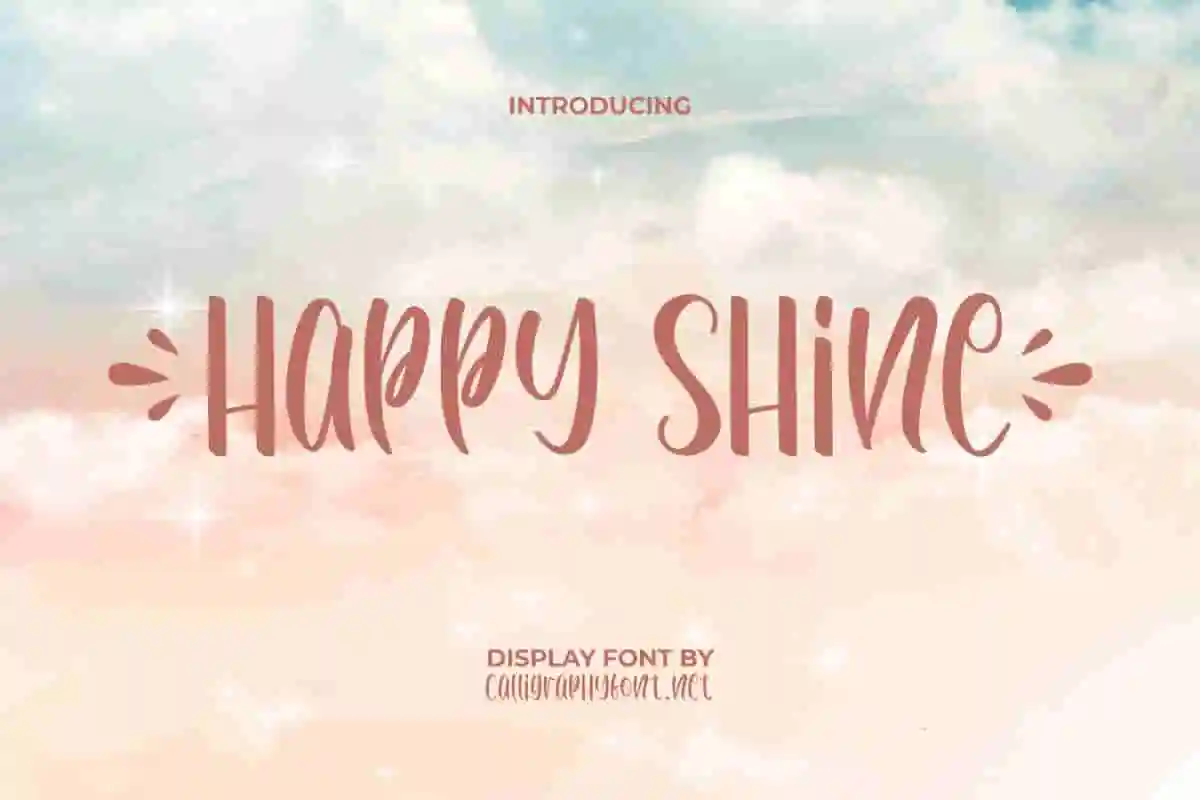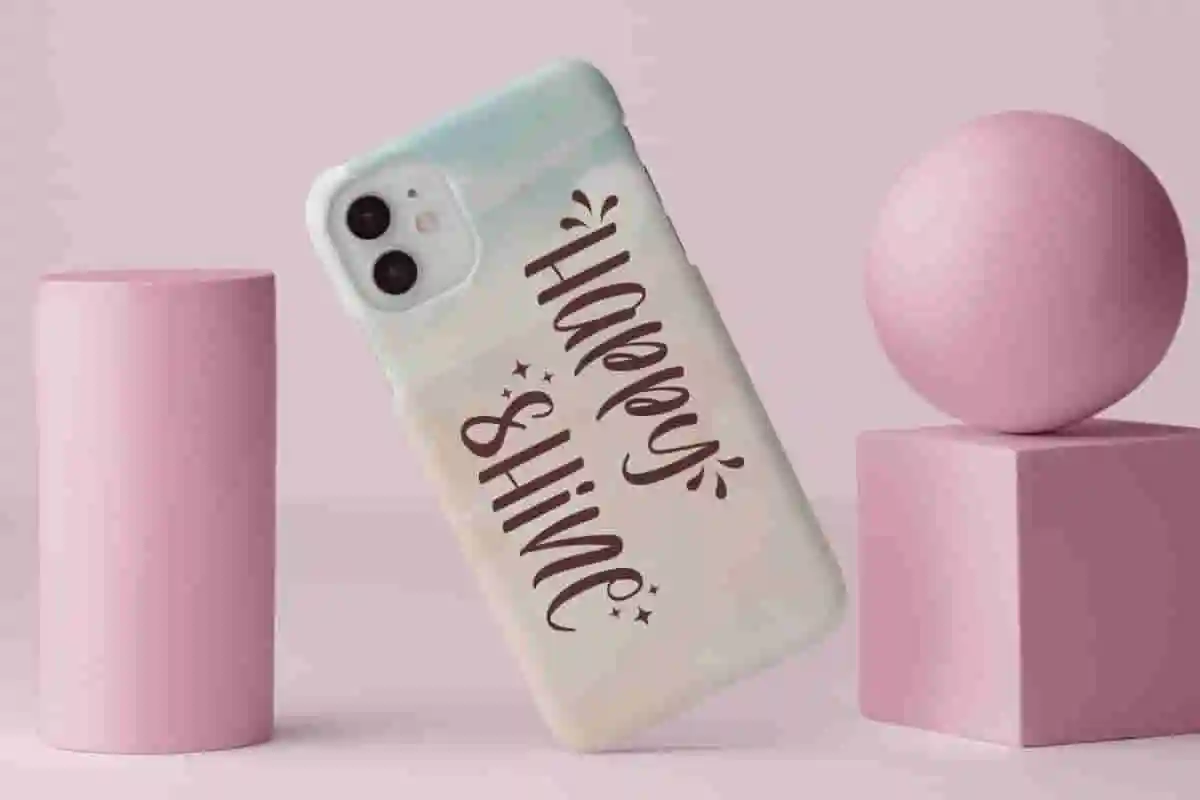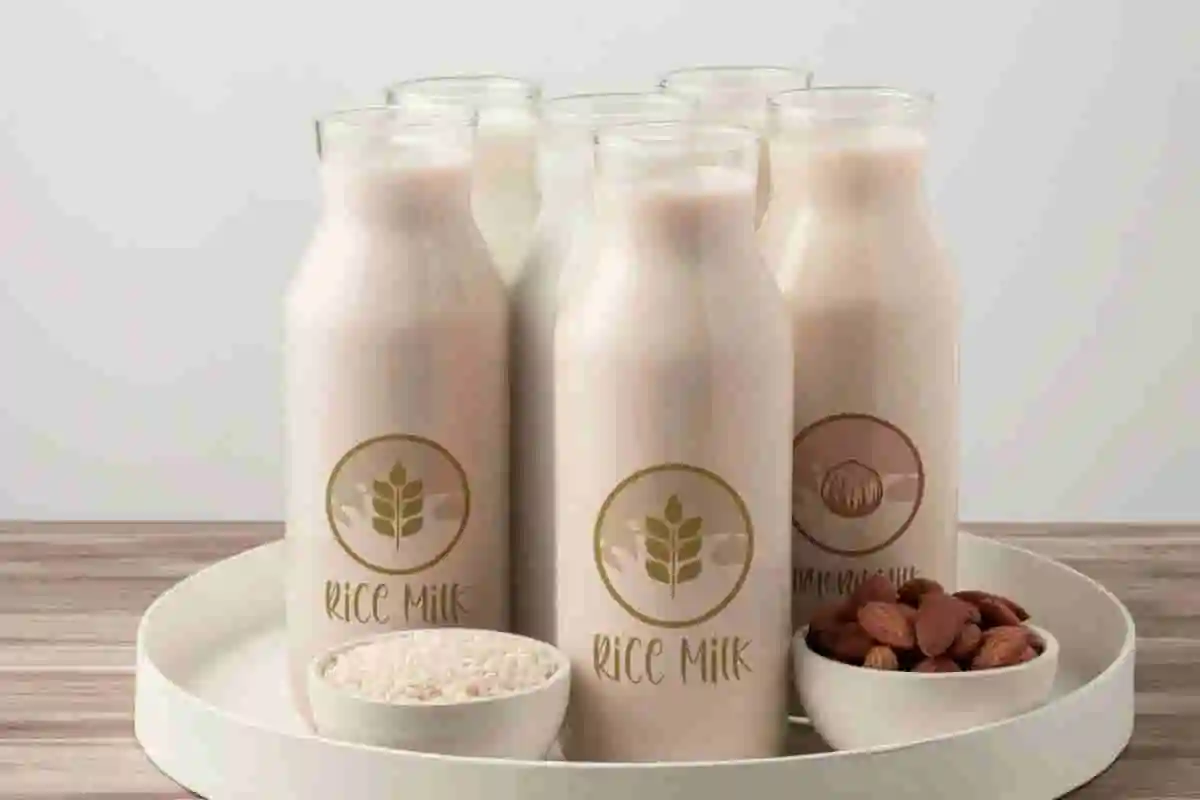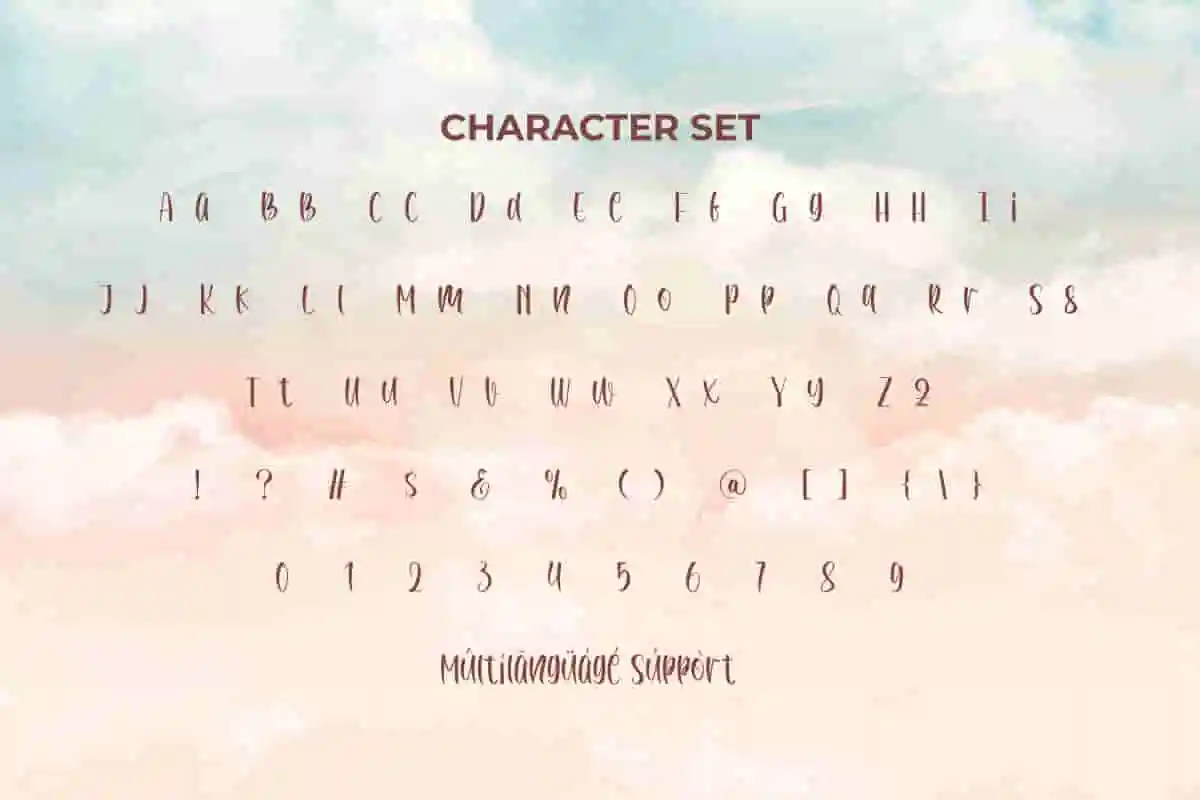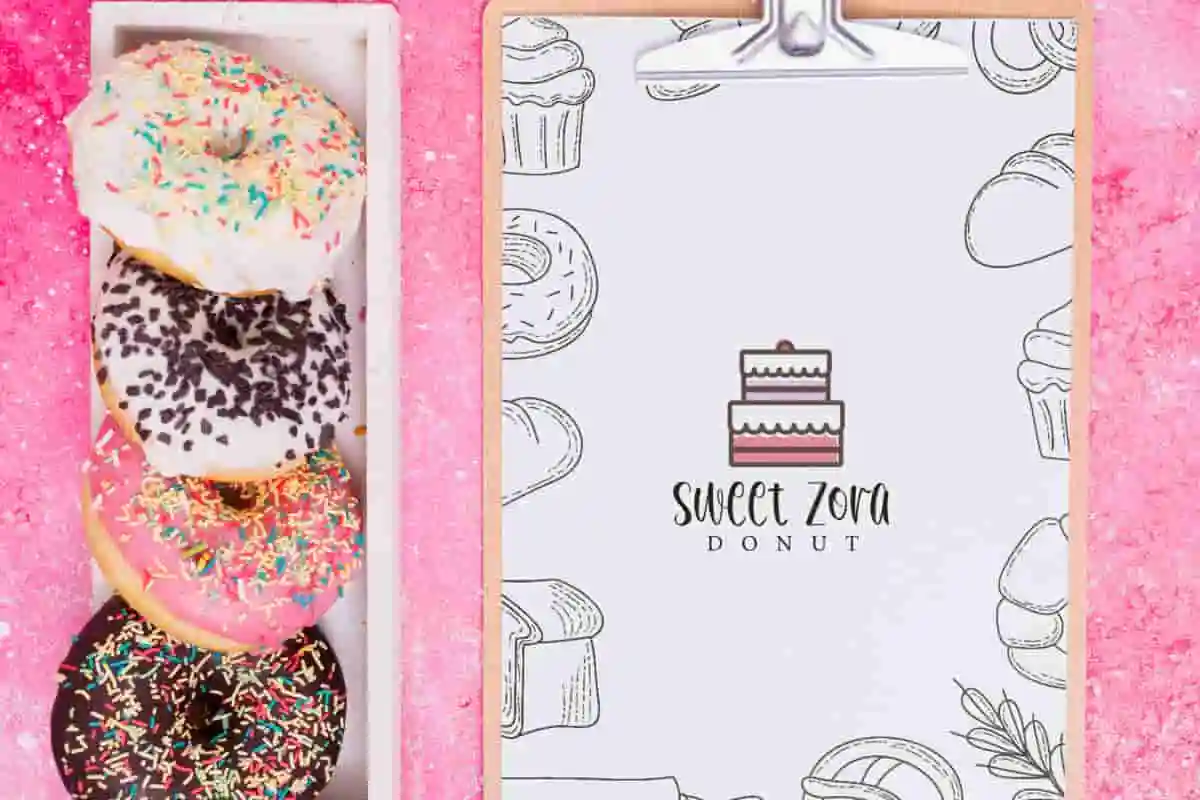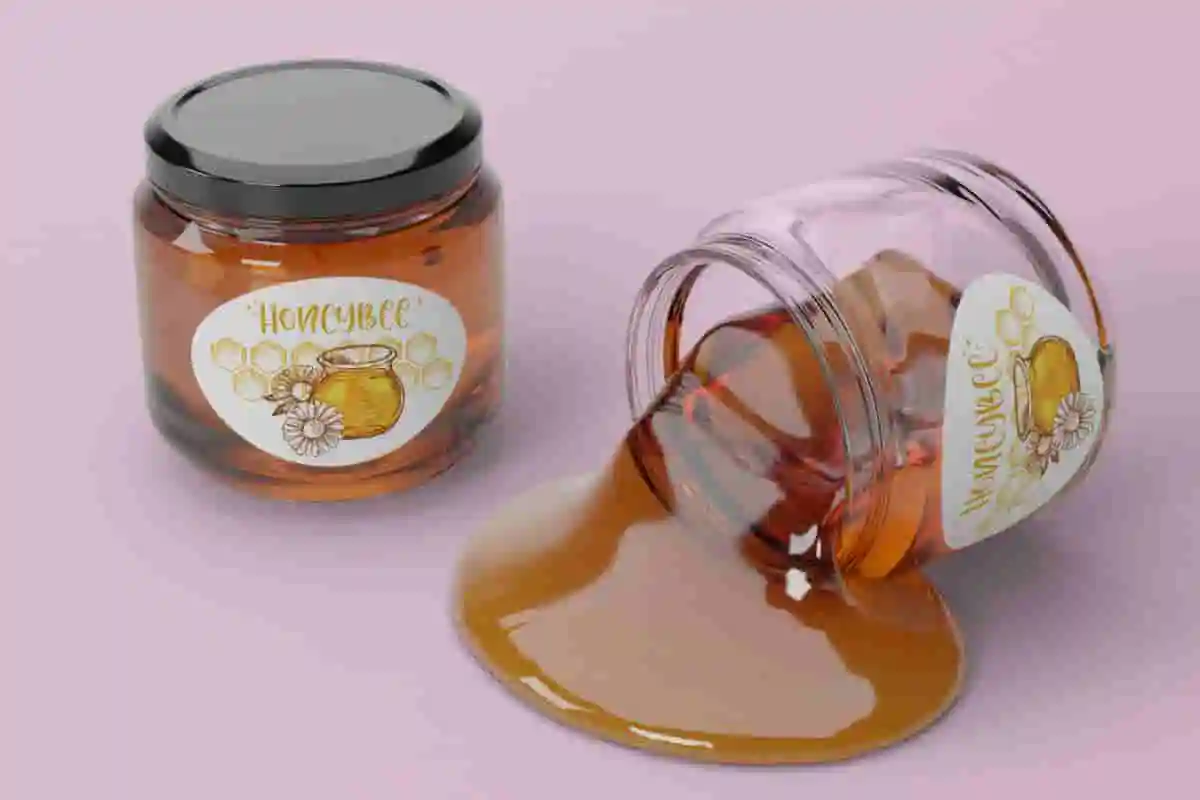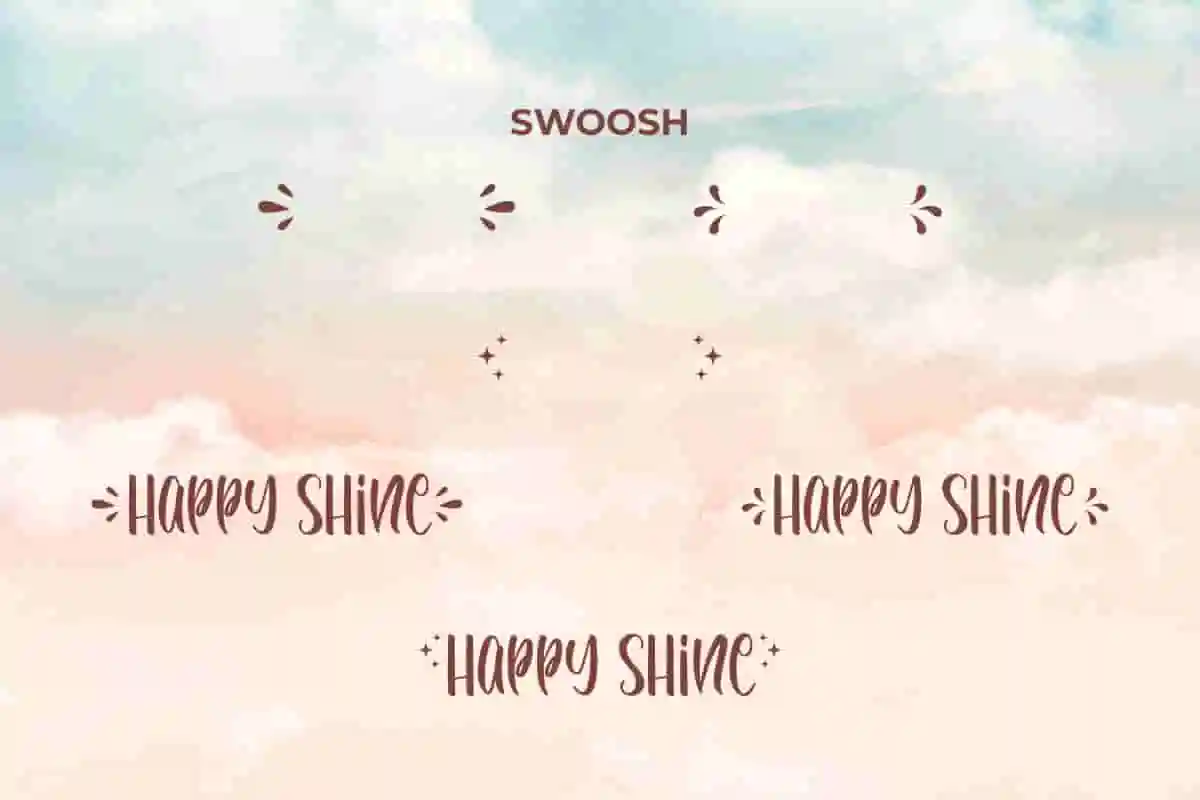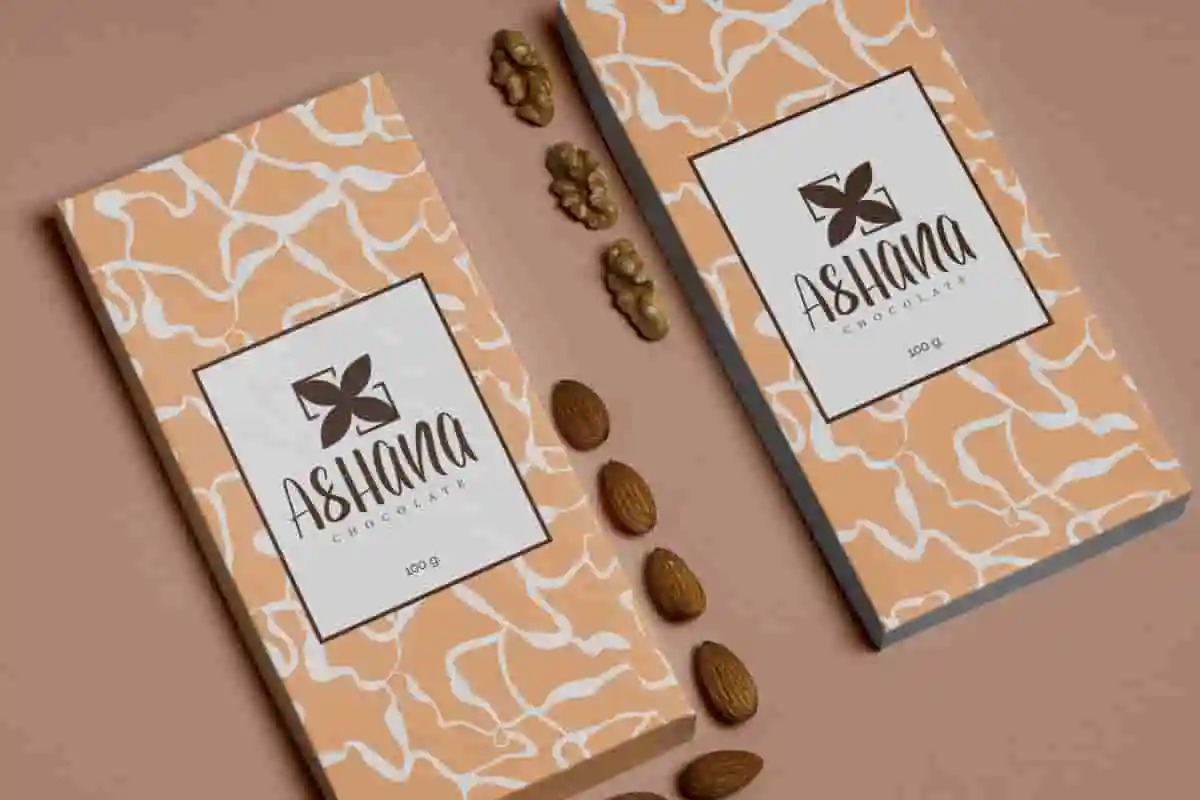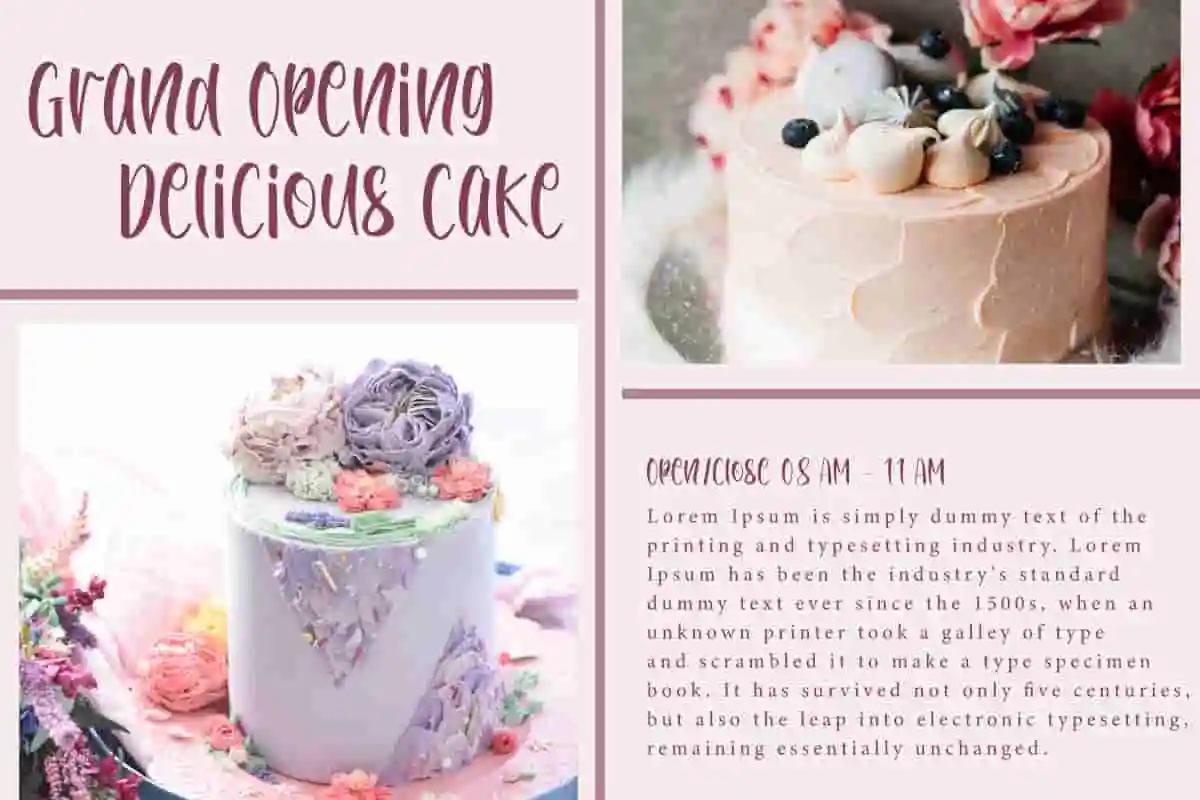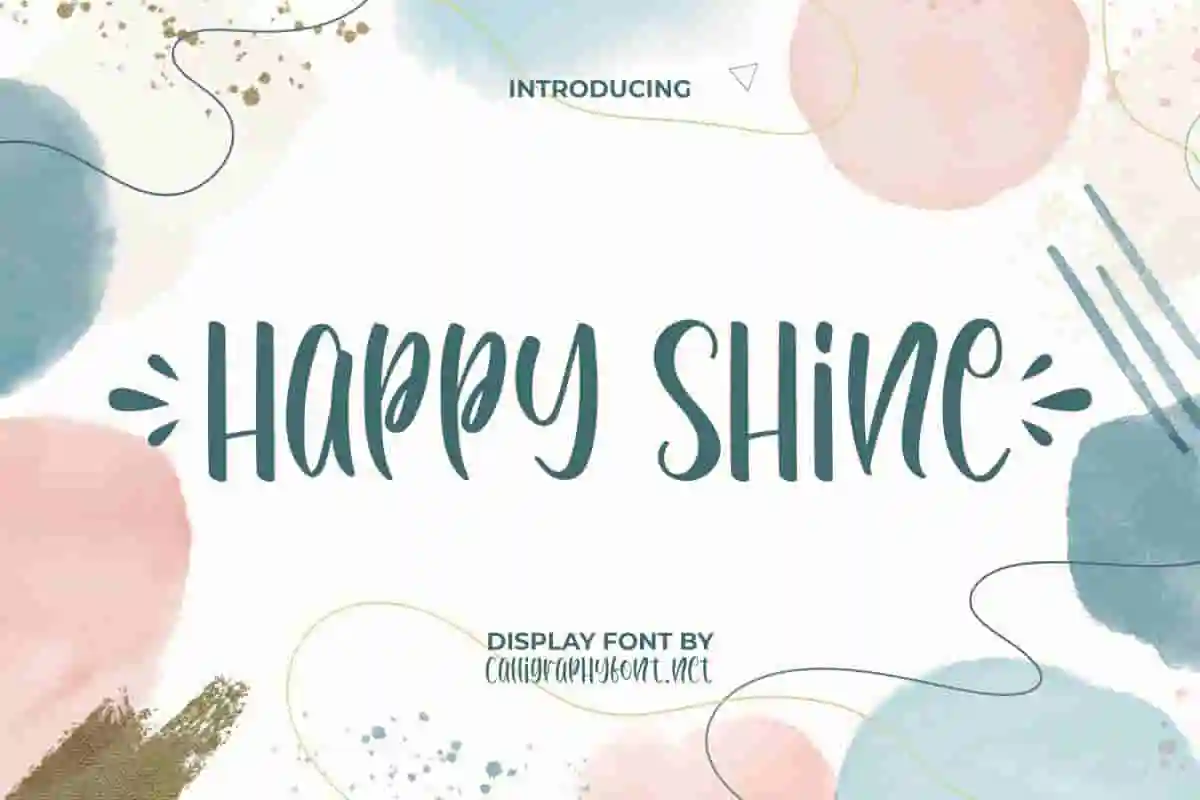
Happy Shine Display Font
Happy Shine Font is a sweet handwritten font that comes with full happiness for everyone! This font is made exclusively by CalligraphyFonts.net and it’s Capable of rivaling any sweetest thing 🙂
Happy Shine Font is a beautiful display font full of joy in it. It feels modern in style with cute brush strokes on each character. Just like it’s name, “Happy Shine” is able to bring out the radiant light of happiness that always accompany you in any project, such as apps, billboard, brand logo, brochure, flyer, label, menu, poster, product packaging, quote, screen print, signage, stationery, sticker, title, website, and many more.
Say hello to Happy Shine Display Font, a bold and bubbly display font that brings instant happiness to every design. Created to stand out with joyful curves and playful personality, this font is perfect for creators who want to leave a cheerful impression. From children’s books and birthday invitations to brand logos, product packaging, and Instagram graphics, Happy Shine adds a fun, friendly vibe that’s impossible to ignore.
Introducing Happy Shine Display Font, a cheerful and eye-catching display font designed to bring joy, creativity, and bold character to any project. Whether you’re working on branding, product packaging, event posters, or social media content, this font radiates happiness and positivity from every letter. With its bouncy curves, rounded edges, and playful style, Happy Shine is perfect for creators who want to stand out with a font that feels friendly, modern, and full of life.
This font is perfect for creatives who want their projects to radiate happiness. With its rounded shapes, lively curves, and clean yet quirky structure, Happy Shine is made to stand out — whether it’s on packaging, children’s books, t-shirts, logos, or social media posts.
hello to Happy Shine Display Font, a fun and energetic display typeface designed to light up your designs with playful charm and bold style.
- Cheerful & Playful Design
- Includes Multilingual Characters
Happy Shine Font is a lovely handwriting with endless sparkles of happiness. This will be interesting and able to increase the artistic value of the font. It will be great for any industry, including: accessories, advertisement, bakery, beekeeper, beverage products, café, cake decorator, chocolate brand, content creator, cooking course, dairy farmer, event organizer, graphic design, handicraft, homeware, interior design, photography, printing, publishing, restaurant, vlogger, wedding, writer, etc.